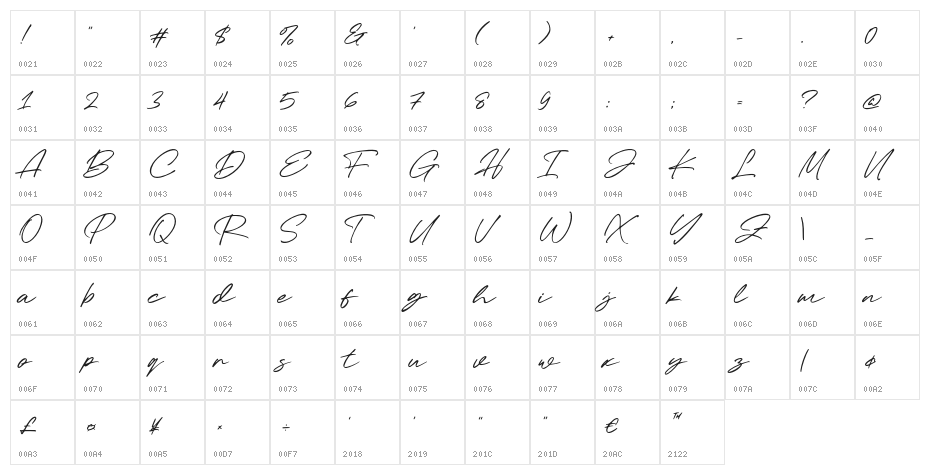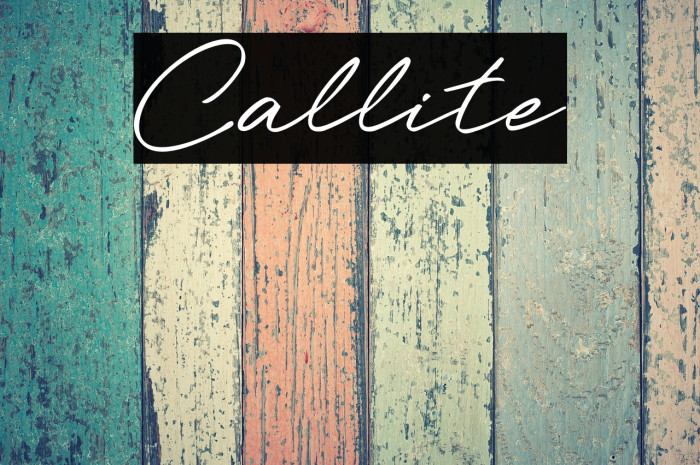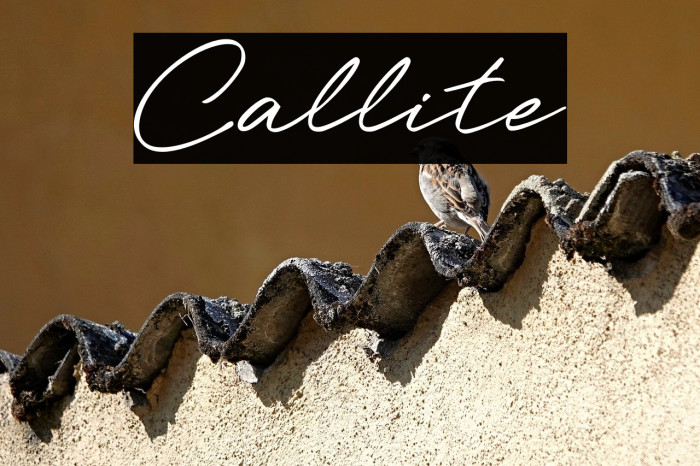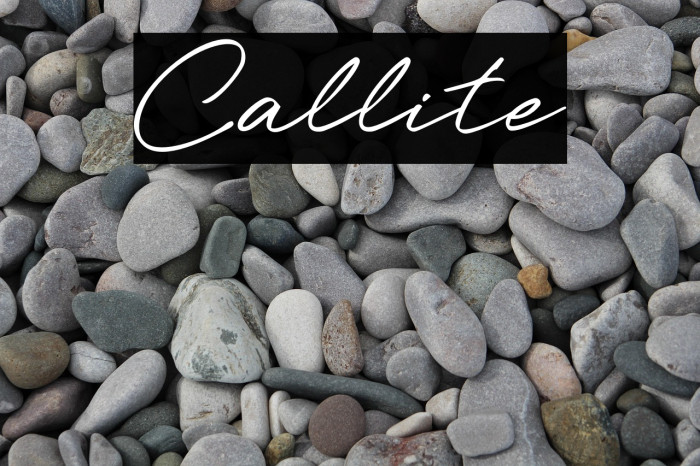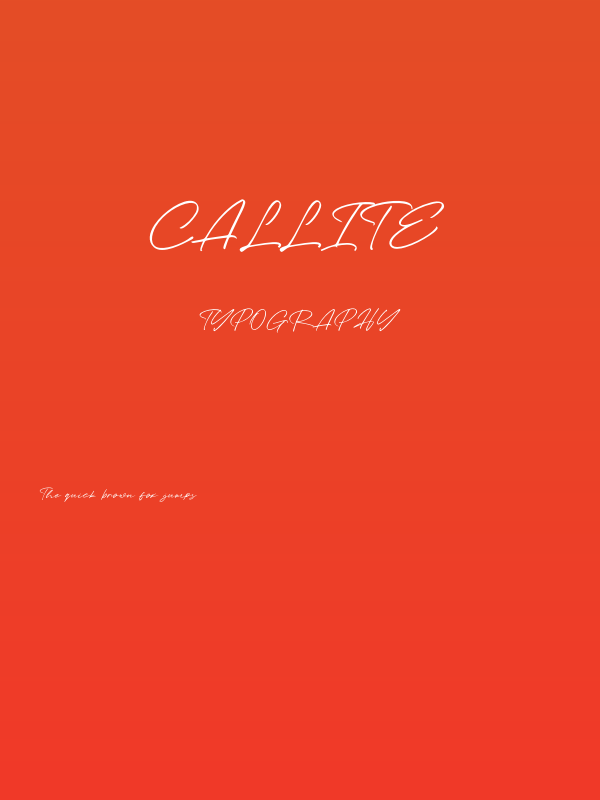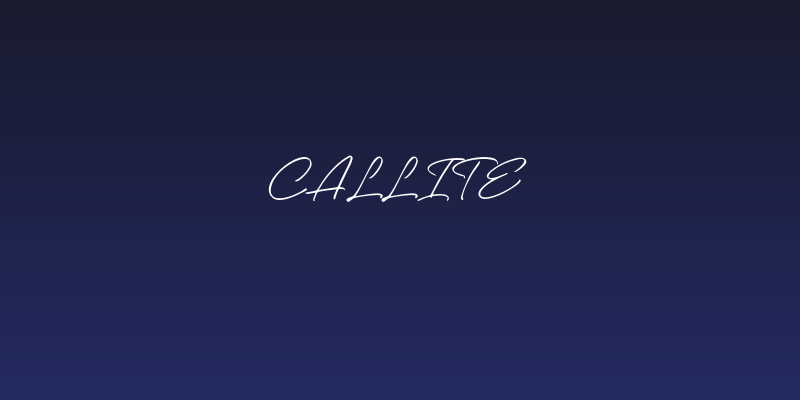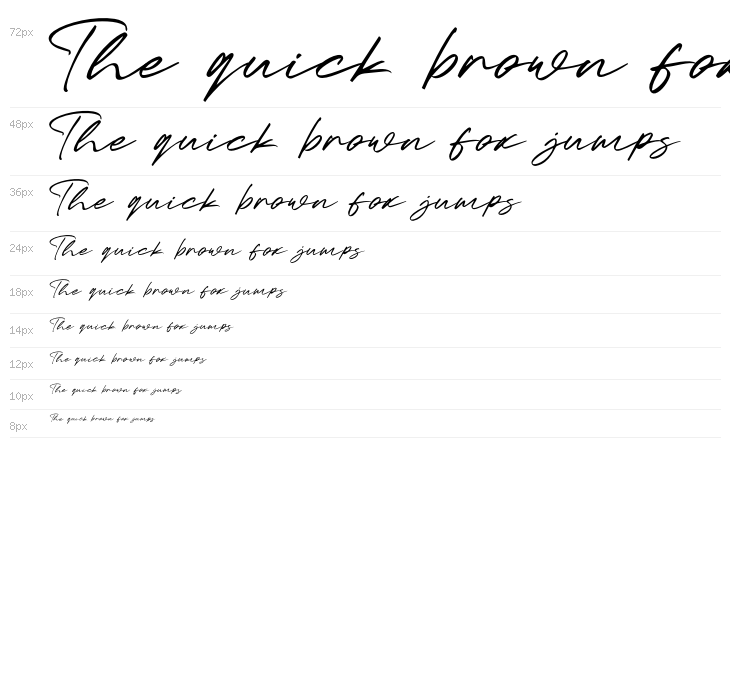
Callite Font
Callite Description
This font features a flowing, cursive style that mimics elegant handwriting. The characters are interconnected with smooth, sweeping lines, giving it a fluid and dynamic appearance. The uppercase letters are slightly more elaborate, with extended strokes and loops, while the lowercase letters maintain a consistent, graceful form. The numerals and special characters are designed to complement the overall script style, ensuring uniformity across all text. This font exudes sophistication and charm, making it ideal for projects that require a personal, handwritten touch.
| Overall Style | Elegant, Handwritten |
| Use Case | Logos, Invitations, Personal Branding |
| Proposed Projects | Ideal for wedding invitations, greeting cards, personal branding, and elegant stationery. |